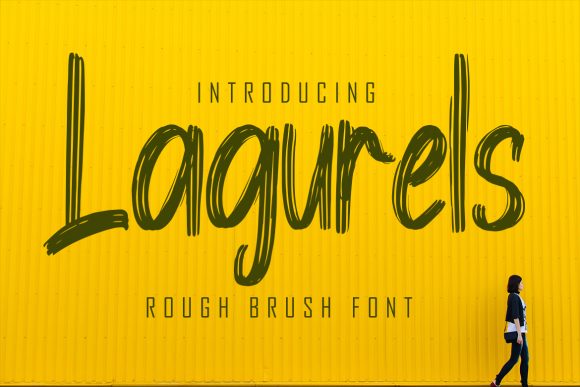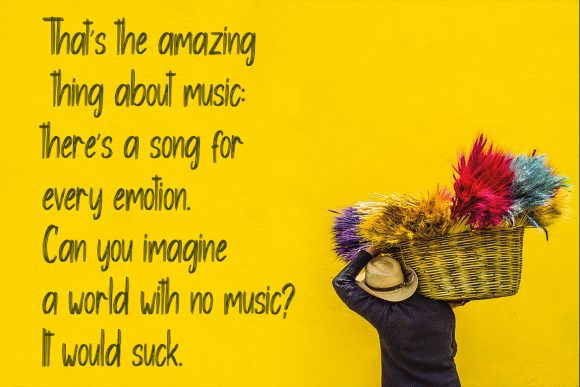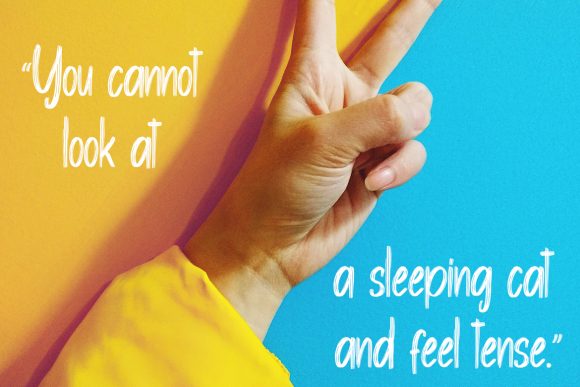
About Lagurels Font
Lagurels is a rough textured, brushed handwritten font. No matter the topic, this font will be an incredibly asset to your fonts’ library, as it has the potential to elevate any creation.